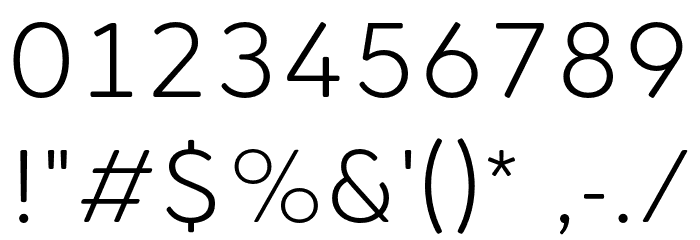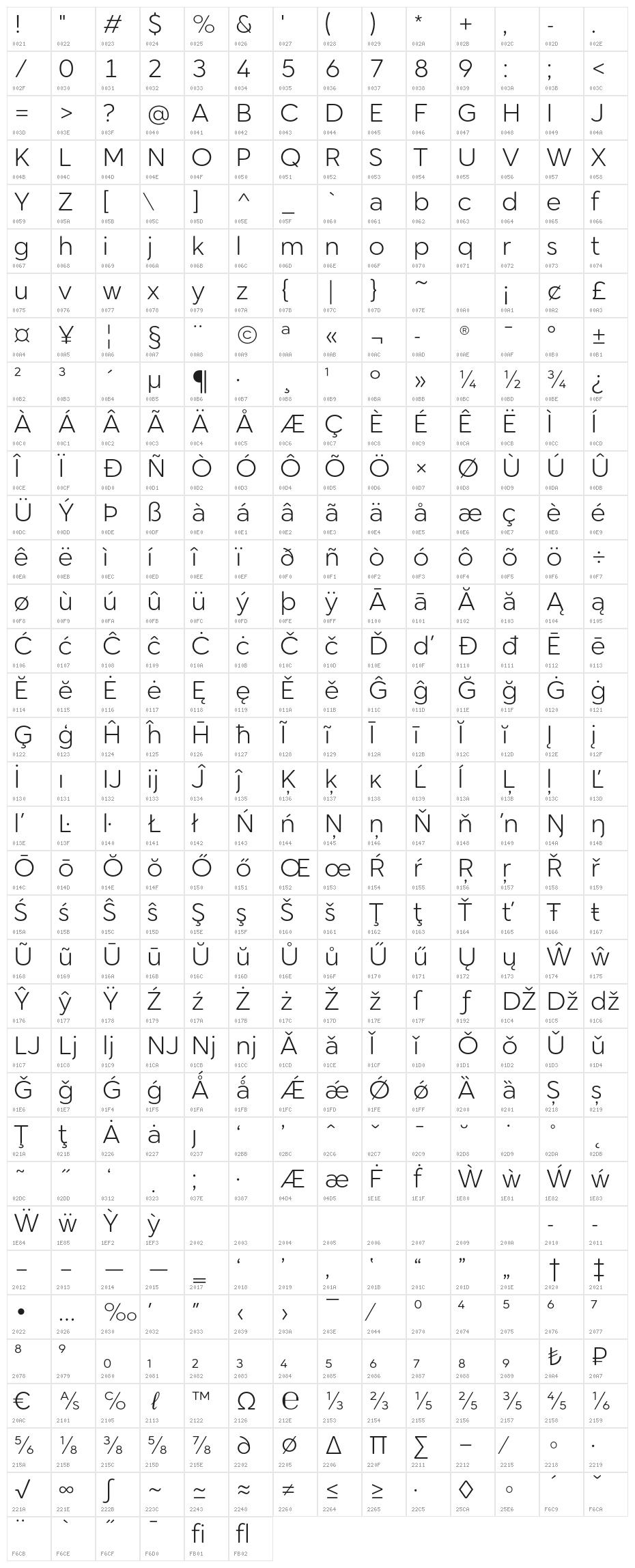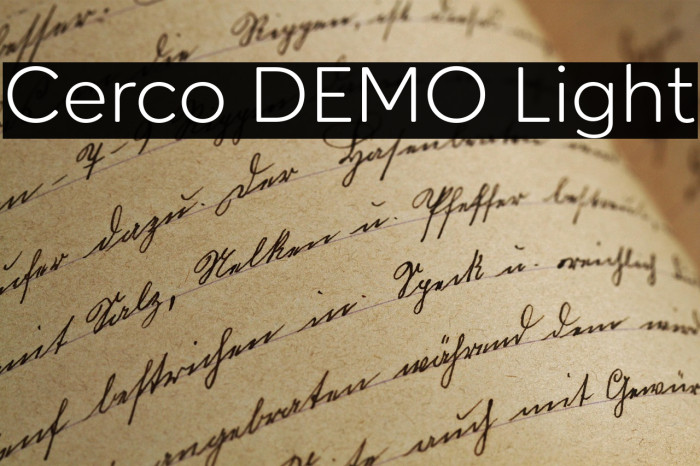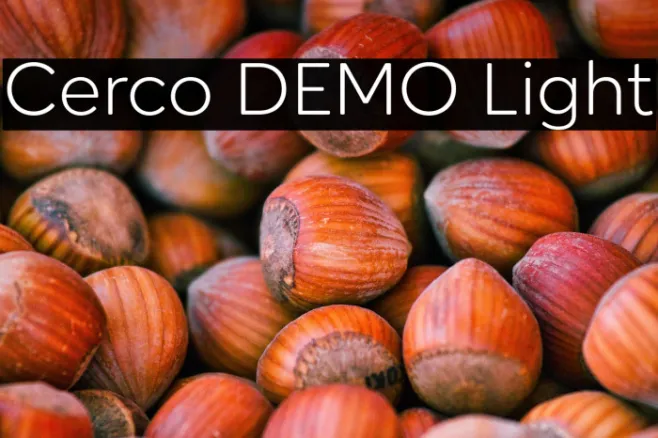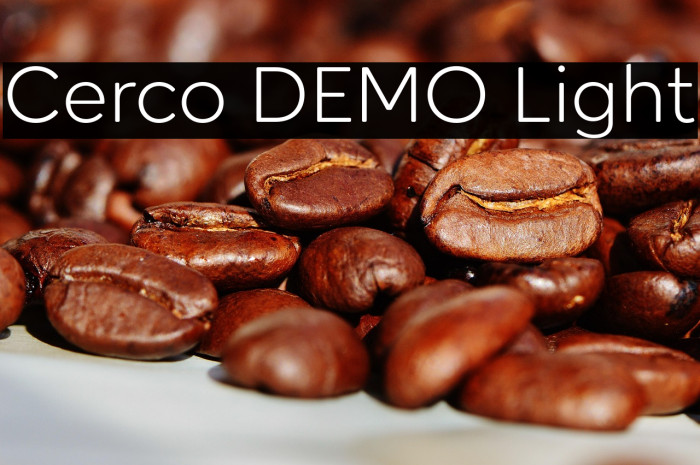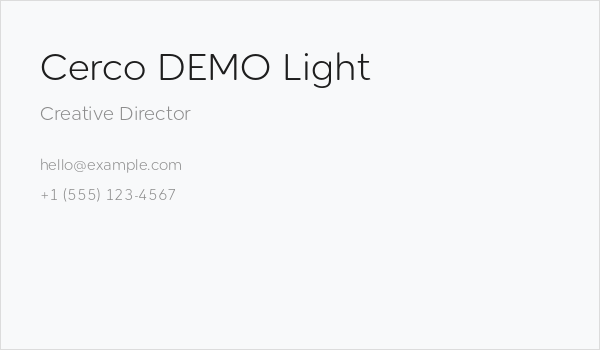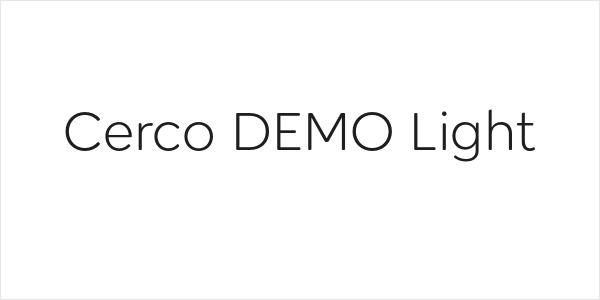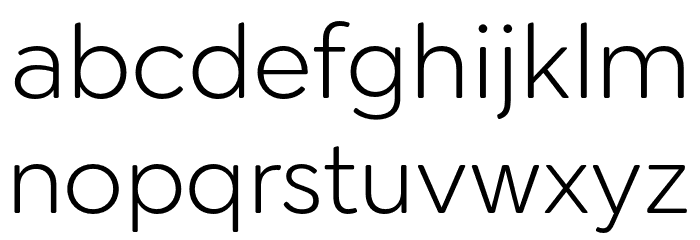
Cerco DEMO Light Font
Cerco DEMO Light Description
This font features a clean and modern sans-serif design, characterized by its geometric shapes and uniform stroke widths. The letters are well-proportioned, with a consistent height and spacing that enhances readability. The uppercase and lowercase letters maintain a harmonious balance, while the numerals and special characters are designed to complement the overall aesthetic. Its simplicity and clarity make it suitable for a wide range of applications, from digital interfaces to print media.
| Proposed Projects | Ideal for branding, web design, user interfaces, and print materials where clarity and modernity are desired. |